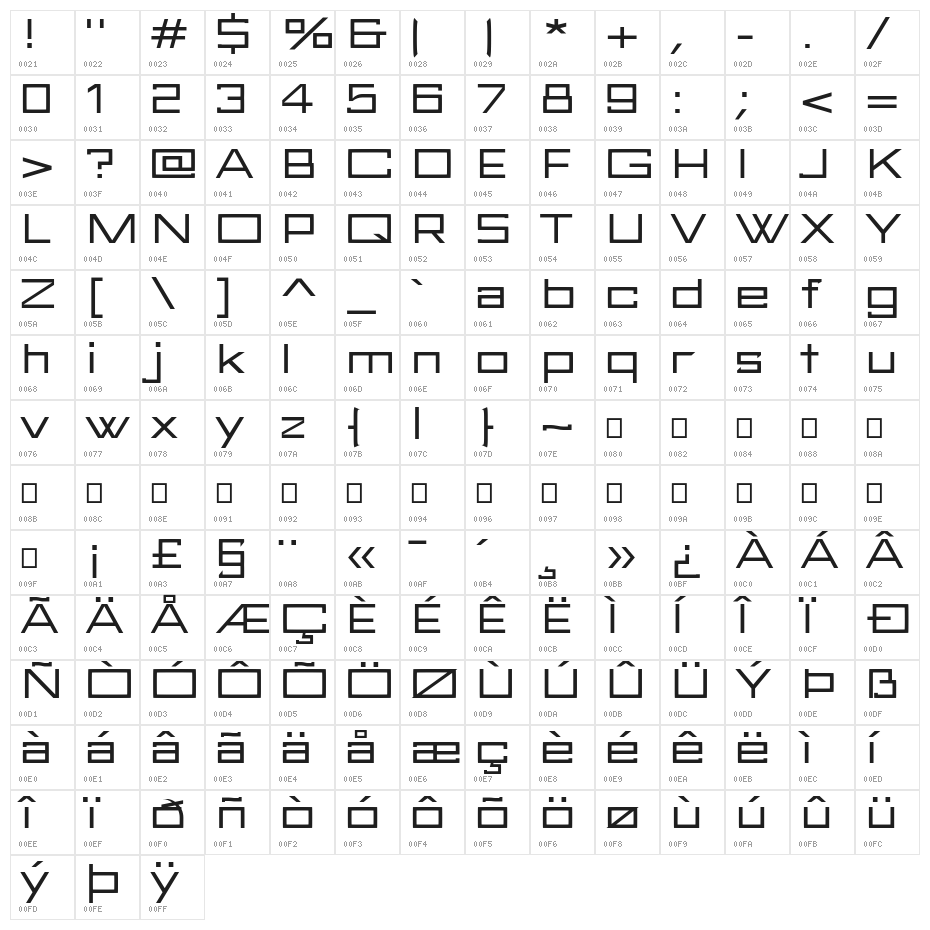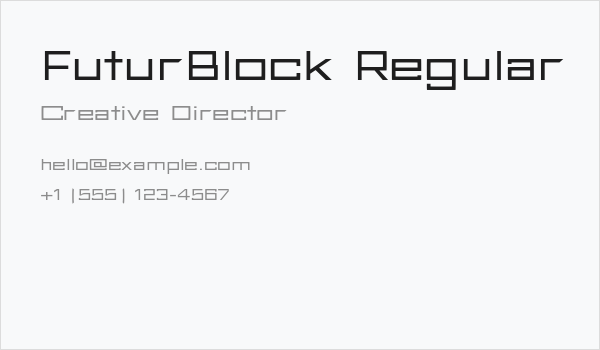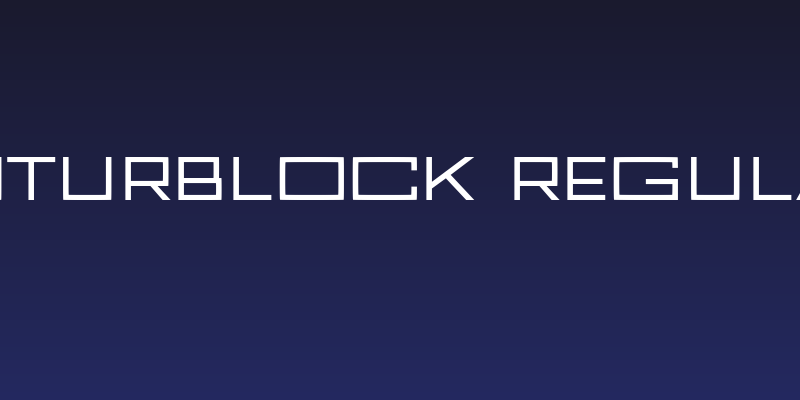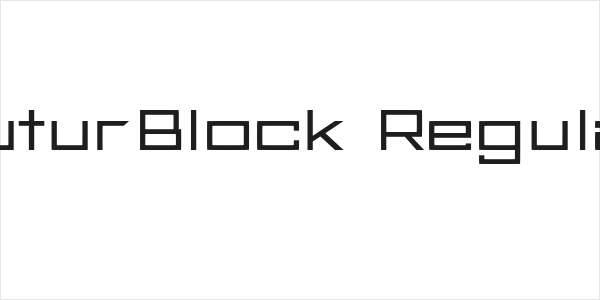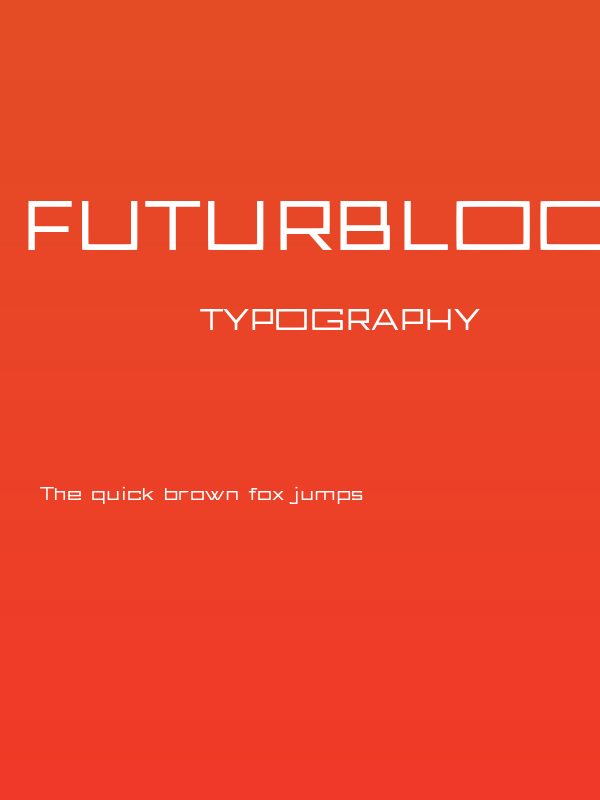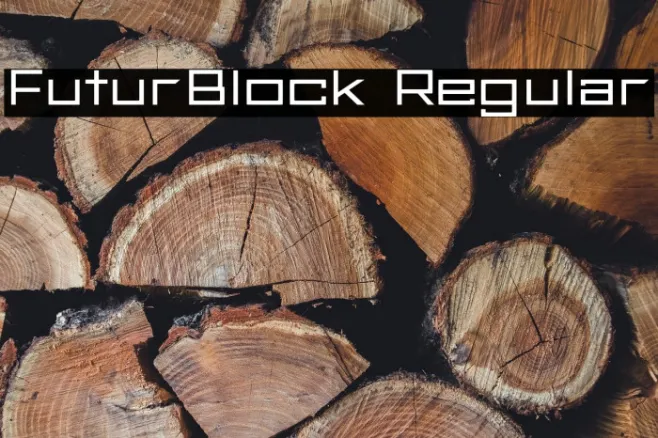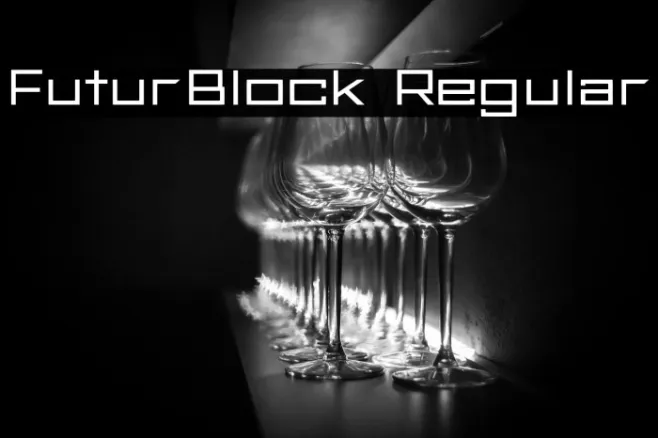
FuturBlock Regular Font
FuturBlock Regular Description
This font features a geometric and modern design with a clean, structured appearance. The characters are composed of straight lines and sharp angles, giving it a futuristic and technical feel. The uppercase and lowercase letters maintain a consistent height, contributing to its uniform look. The numerals and special characters follow the same geometric style, ensuring cohesiveness across all elements. Its simplicity and precision make it suitable for projects that require a contemporary and minimalist aesthetic.
| Proposed Projects | Ideal for technology branding, modern web design, and futuristic posters. |